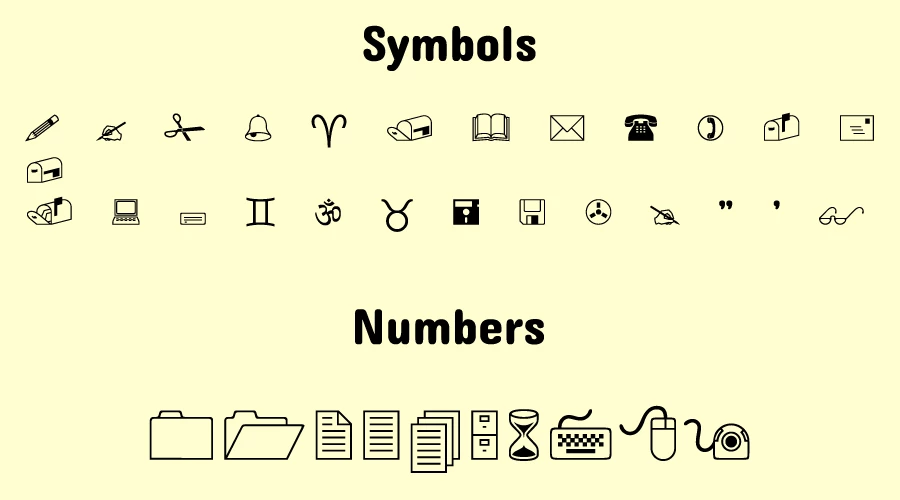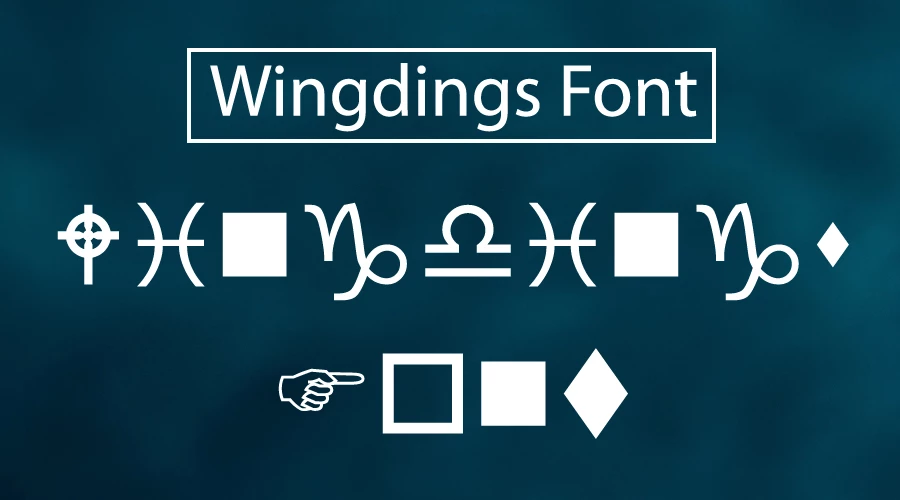
Do you know that the emoticons and symbols you often use from your smartphone’s keyboard, which are actually a font? Yes, those dingbats are Wingdings font, which will be discussed here.
Kris Holmes and Charles Bigelow designed the Wingdings font in 1990 and 1991. However, the Wingdings font did not start its journey with this name. Originally, it was named Lucida Icons, Arrows, and Stars. Also, it was a part of the Lucida text font family, which was another project of Holmes-Bigelow.
Not long after Holmes-Bigelow’s creation, Microsoft reorganized the Lucida Icons, Arrows, and Stars, named it as Microsoft Wingdings(™), and released it as an individual font in 1992.
The Wingdings font offers a wide variety of elements, including arrows, geometric shapes, weather signs, religious symbols, zodiac signs, check boxes, computer-based signs etc. Below are the details of the this beautiful font.
Since this font contains icons, it is clear that you cannot randomly use it in documents and text-based designs. In other words, this font is not suitable for formal documents. You can use this symbolic typeface only when you want to indicate or symbolize something on a white page. Here is a list of design fields for the Wingdings font.
Similar to Wingdings Font
- Tidbits font – This font contains religious icons, emoticons, numbers, zodiac sign symbols, hand signs, geometric signs, etc. Monotype Imaging released this font in 2002.
- Xingy Ding font – Robert Schenk developed this font as an alternative to the Wingdings font of Microsoft. In 1995, Ingrimayne Type font foundry released this font. The font features icons, symbols, and pictures of communication, religion, zodiac signs, human hand, emotions, etc.
- GG Dingbats font – Gerald Gallo designed and released this font. It features icons and pictures of clocks, flowers, numbers, geometric shapes, arrows, etc.
- PIXymbols Dingbats font – It features symbols of copyright, e-mail, registration, trademark, and web. Roger Vershen designed this font Page Studio Graphics font foundry released this font.
Font Family
- Wingdings
- Wingdings 2
- Wingdings 3
Ans: Wingdings font is a Symbolic font designed by Kris Holmes and Charles Bigelow in 1990.